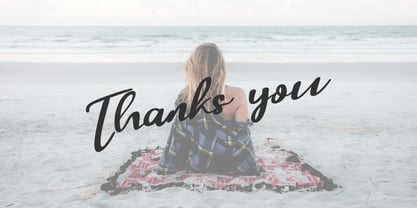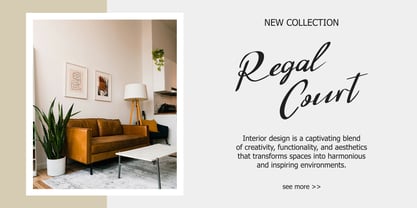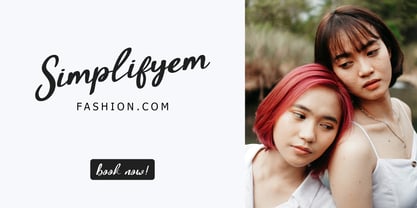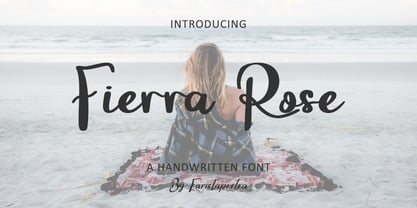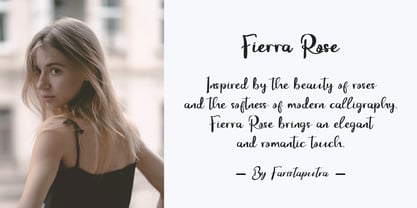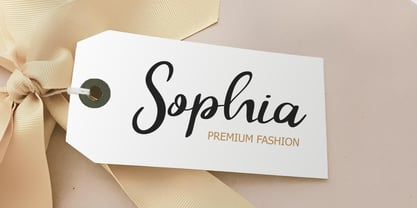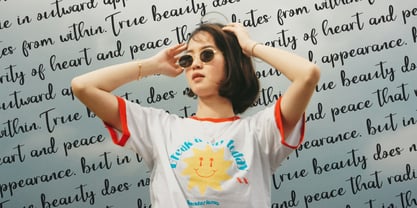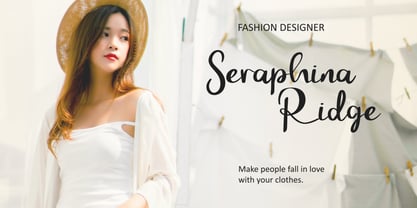
FA Fierra Rose
by Faristaputra
The FA Fierra Rose Font Family was designed by Frederik Aristaputra and published by Faristaputra. FA Fierra Rose contains 3 styles and family package options. More about this family
Fierra Rose is a handlettering font that combines natural beauty. With smooth yet characteristic strokes, this font reflects a soft, elegant impression while conveying a natural and organic atmosphere. Each letter is designed to give a personal touch, as if written by a caring hand.